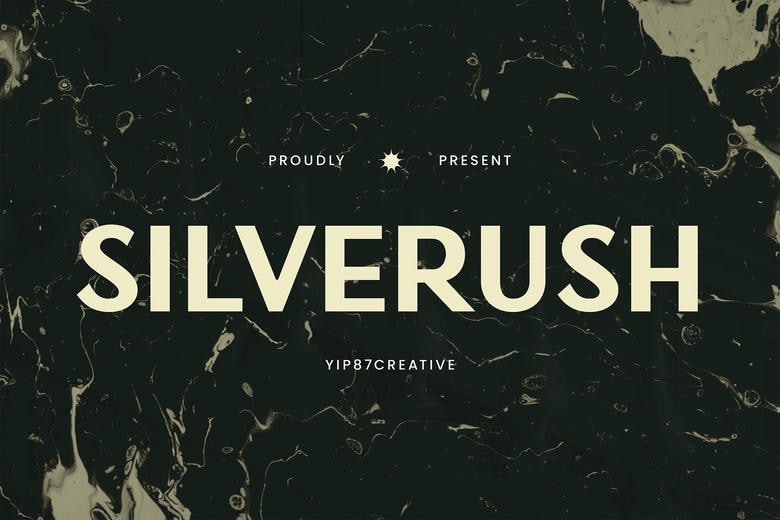
Silverush Font
Silverush is a clean glossy sans-serif font with a touch of the vintage roughness of the adaption of a classical serif. It has a modern sleek appearance, suitable for projects that need classy touch and its flexible features suit any branding, luxury packaging, logo design, fashion magazines, editorial and any project that needs style and a touch of the classics. Revolutionize your branding design projects with Silverush Font now.
Silverush Sans Serif Font